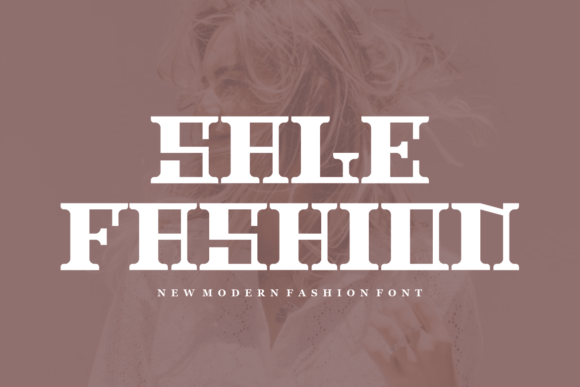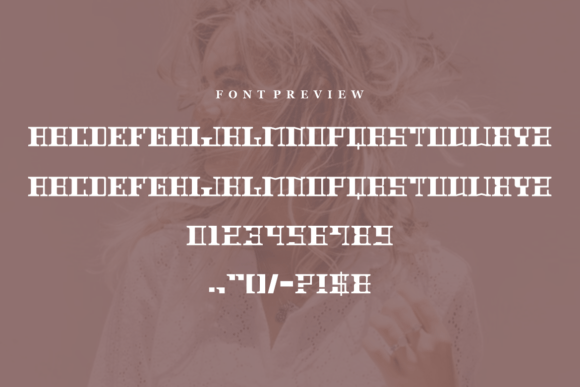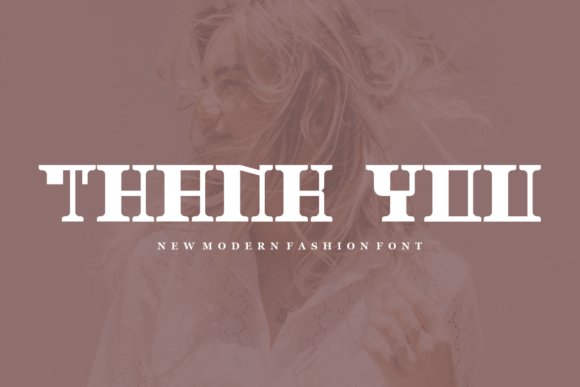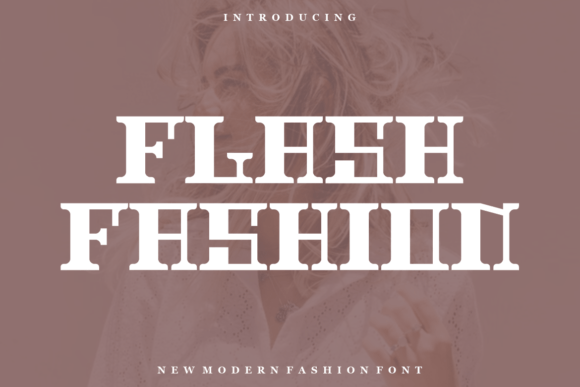
Introducing Flash Fashion Font: The Ultimate Modern Display Font
In the world of design, fonts play a crucial role in conveying the message and tone of a brand. A well-chosen font can elevate a design project from ordinary to extraordinary. If you’re a designer or crafter looking for a bold and authentic display font, look no further than Flash Fashion Font. In this article, we’ll explore the features and benefits of Flash Fashion Font, and why it’s the perfect choice for your next branding project.
What is Flash Fashion Font?
Flash Fashion Font is a modern display font that exudes confidence and style. Its bold and authentic design makes it perfect for creating striking logos, esport designs, and other branding projects. The font’s unique and edgy aesthetic sets it apart from other fonts, making it a standout choice for designers who want to create something truly memorable.
Key Features of Flash Fashion Font
• Bold and Authentic Design: Flash Fashion Font features a bold and authentic design that’s perfect for creating eye-catching headlines and titles.
• Versatile: The font is suitable for a wide range of contexts, from logo design to esport designs, and more.
• Easily Readable: Despite its bold design, Flash Fashion Font is easily readable, making it perfect for use in a variety of applications.
• High-Quality: The font is designed with high-quality and precision, ensuring that it looks great in any design project.
Benefits of Using Flash Fashion Font
So, why choose Flash Fashion Font for your next design project? Here are just a few benefits of using this amazing font:
• Create a Lasting Impression: With Flash Fashion Font, you can create a lasting impression on your audience. Its bold and authentic design ensures that your message gets noticed.
• Stand Out from the Crowd: In a world where design is everywhere, it’s easy to get lost in the crowd. Flash Fashion Font helps you stand out with its unique and edgy aesthetic.
• Perfect for Branding Projects: Whether you’re creating a logo, esport design, or other branding project, Flash Fashion Font is the perfect choice.
• Easily Customizable: The font is easily customizable, allowing you to adjust it to fit your design needs.
Who Can Use Flash Fashion Font?
Flash Fashion Font is perfect for a variety of designers and crafters, including:
• Graphic Designers: If you’re a graphic designer looking for a bold and authentic font for your next project, Flash Fashion Font is a great choice.
• Logos and Branding Specialists: The font is perfect for creating striking logos and branding materials that make a lasting impression.
• Esport Designers: If you’re an esport designer looking for a font that can help you create professional and stylish designs, Flash Fashion Font is a great option.
• Crafters and Makers: Whether you’re creating handmade products or selling digital goods, Flash Fashion Font can add a touch of style and sophistication to your designs.
Tips for Using Flash Fashion Font
Here are a few tips for getting the most out of Flash Fashion Font:
• Use it Boldly: Don’t be afraid to use Flash Fashion Font in bold and eye-catching ways. Its design is meant to be noticed!
• Experiment with Colors: The font looks great in a variety of colors, so don’t be afraid to experiment and find the perfect hue for your design.
• Pair it with Other Fonts: Flash Fashion Font pairs well with other fonts, so feel free to get creative and find the perfect combination for your design.
In conclusion, Flash Fashion Font is a bold and authentic display font that’s perfect for designers and crafters looking to create striking branding materials. Its versatile design and easily readable style make it suitable for a wide range of contexts, from logo design to esport designs and more. With its high-quality design and precision, Flash Fashion Font is sure to elevate your design projects to the next level.